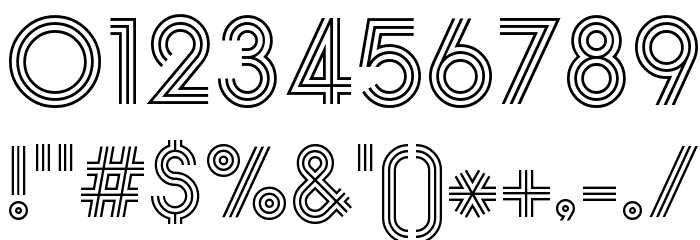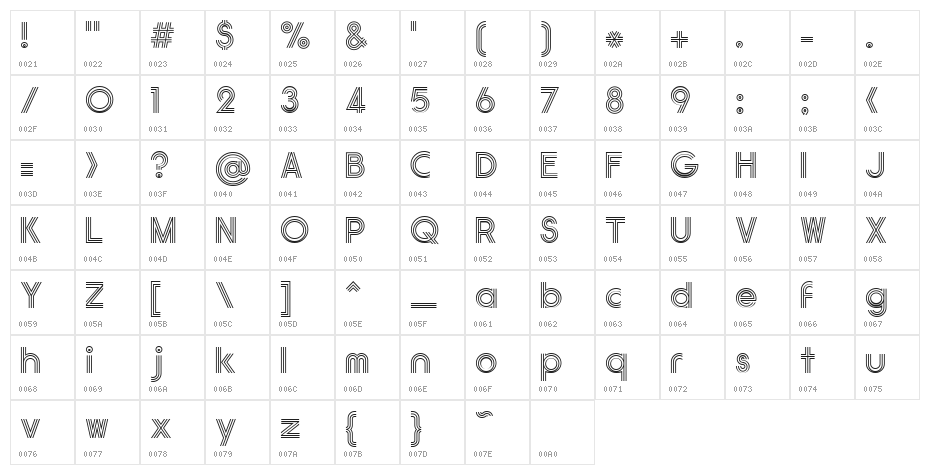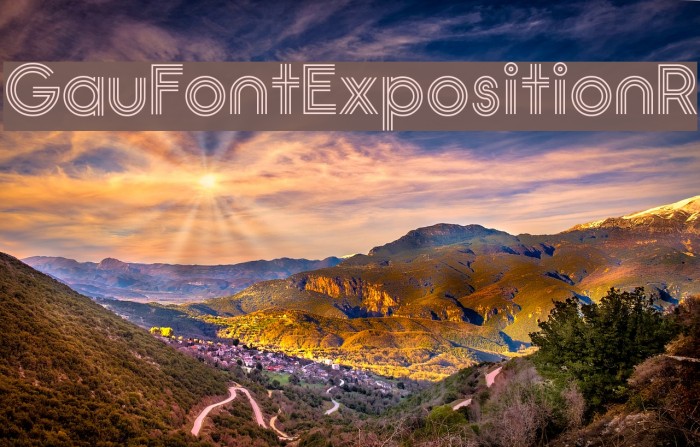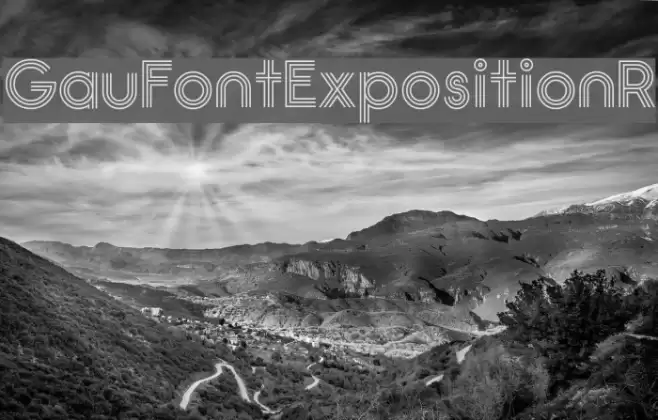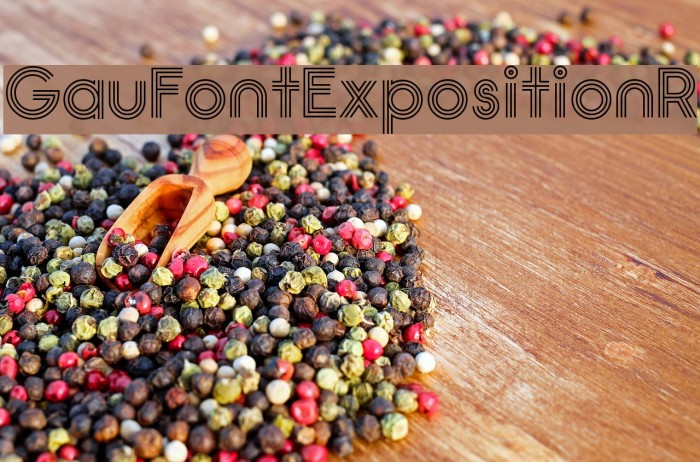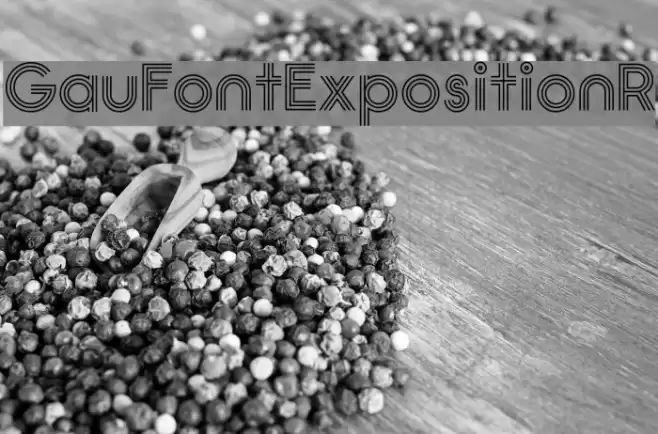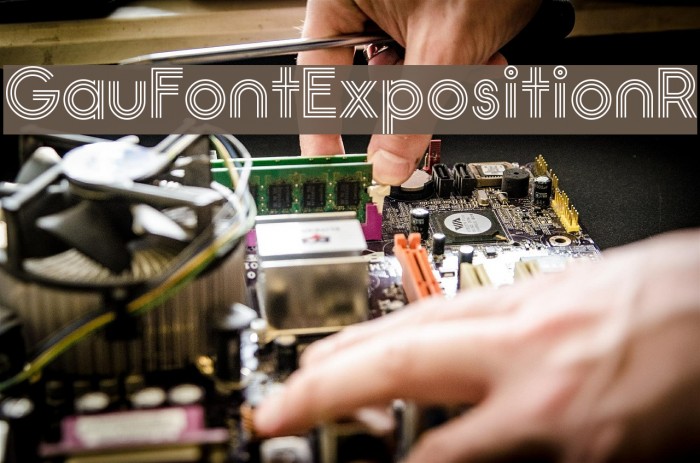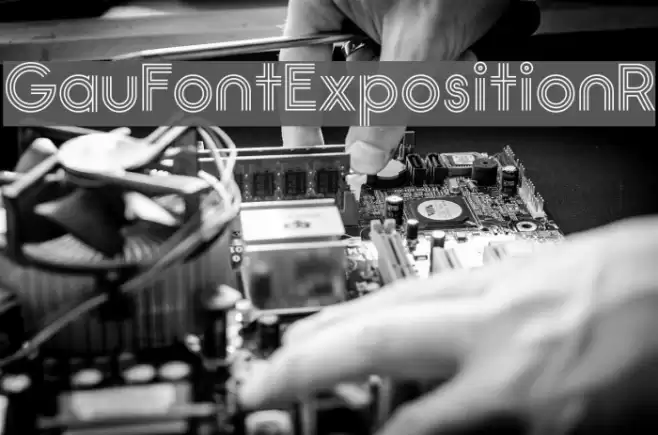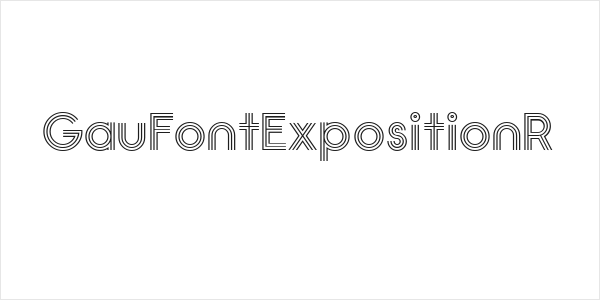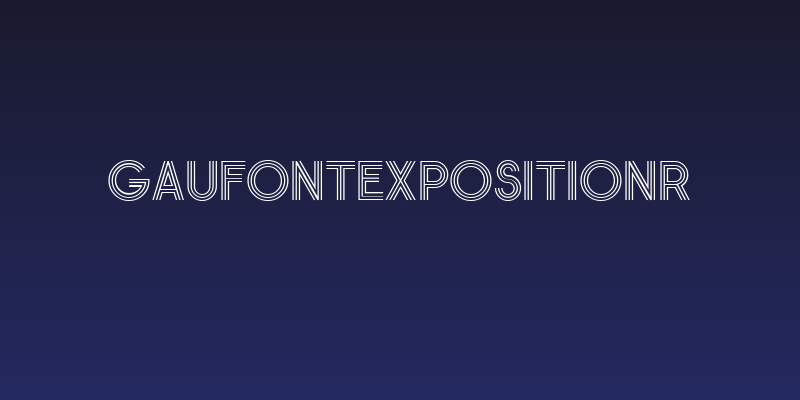
GauFontExpositionR Font
GauFontExpositionR Description
This font features a unique, multi-line design that creates a striking visual impact. Each character is composed of several parallel lines, giving it a layered and dimensional appearance. The geometric structure is consistent across uppercase, lowercase, numbers, and special characters, maintaining a cohesive look. The font's style is modern and artistic, making it suitable for creative projects. Its intricate design demands attention, making it ideal for headlines or branding where a bold statement is desired. The spacing between characters is normal, ensuring readability despite the complex design.
| Proposed Projects | Ideal for branding, posters, album covers, and any project requiring a bold, artistic touch. |